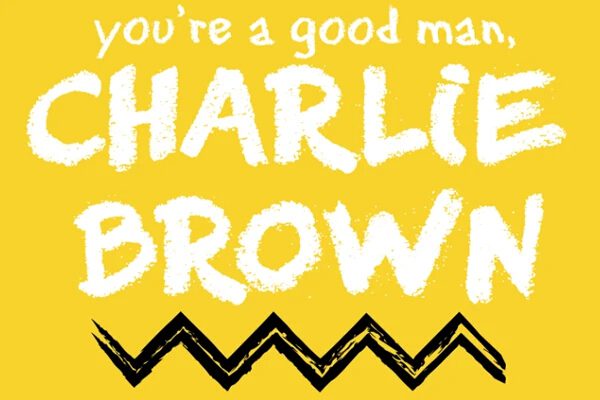
The name of the Charlie Brown font that is used in the lettering for the animated TV series is a typeface by the name of Peanuts. This is a freeware font, which means that you are permitted to use it for all personal uses. The handwriting style in this font is reminiscent of the child-like characters in the Peanuts animated series, hence the name.
If you are looking to create you own Peanuts inspired design, then this is the perfect typeface for you.